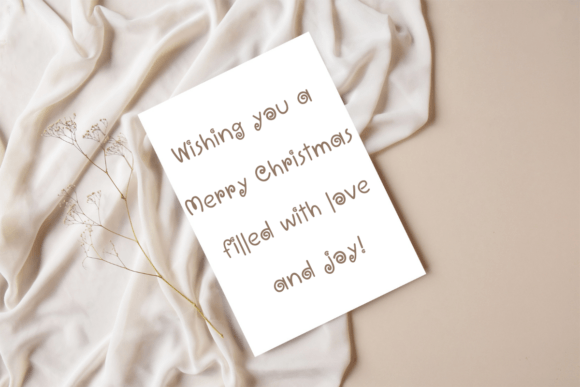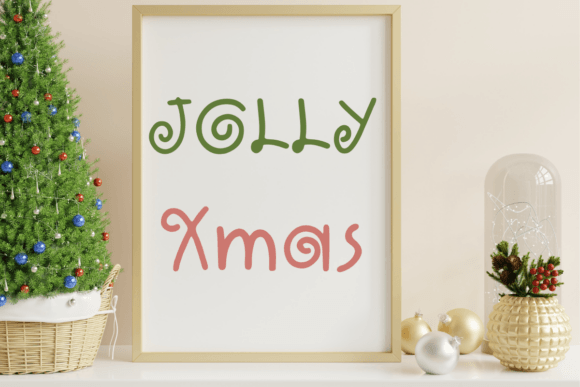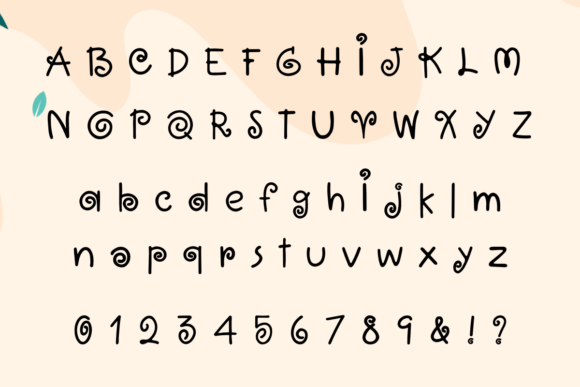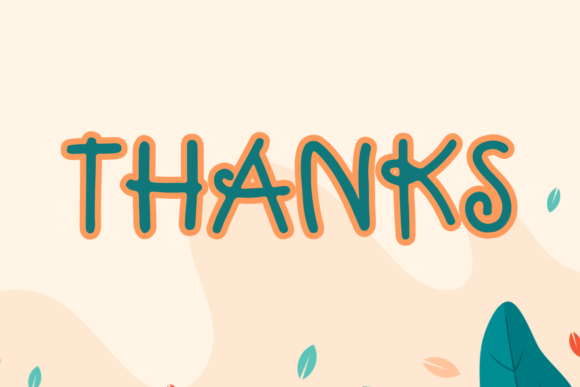
Introducing Curvy Font: Add a Playful Touch to Your Creative Projects
Are you looking for a font that can add a dash of personality to your creative projects? Look no further than Curvy Font! This fun and quirky font is designed to bring a playful touch to your designs, making it perfect for a wide range of applications. From invitations and greeting cards to posters, children’s books, and more, Curvy Font is the perfect choice for designers and crafters who want to add a unique style to their work.
The Characteristics of Curvy Font
So, what makes Curvy Font so special? For starters, its rounded shapes and whimsical curves give it a distinctive look that’s both fun and playful. The font’s unique design makes it perfect for adding a touch of personality to any project, whether you’re creating a logo, custom prints, or web designs. Additionally, Curvy Font is highly versatile, making it suitable for a wide range of applications, from crafting and DIY projects to branding and advertising.
Curvy Font is perfect for designers and crafters who want to add a playful touch to their creative projects. Here are just a few ideas for how you can use this fun and quirky font:
- Invitations and Greeting Cards: Add a personal touch to your invitations and greeting cards with Curvy Font. Its playful design makes it perfect for special occasions like birthdays, weddings, and holidays.
- Posters and Flyers: Create eye-catching posters and flyers with Curvy Font. Its bold and playful design makes it perfect for advertising events, promotions, and more.
- Children’s Books: Curvy Font is perfect for children’s books, adding a fun and playful touch to your storybook designs.
- Branding and Advertising: Use Curvy Font to create unique and memorable branding and advertising materials, such as logos, business cards, and brochures.
- Crafting and DIY Projects: Add a personal touch to your crafting and DIY projects with Curvy Font. Its playful design makes it perfect for creating custom signs, banners, and more.
Why Choose Curvy Font?
So, why should you choose Curvy Font for your creative projects? Here are just a few reasons:
- Unique Design: Curvy Font has a unique and playful design that will add a touch of personality to your projects.
- Highly Versatile: Curvy Font is highly versatile, making it suitable for a wide range of applications.
- Easy to Use: Curvy Font is easy to use and can be easily integrated into your design projects.
- Fun and Playful: Curvy Font is perfect for designers and crafters who want to add a fun and playful touch to their projects.
| Font Name | Curvy Font |
| Author | zikadoozz |
In conclusion, Curvy Font is a fun and quirky font that’s perfect for designers and crafters who want to add a playful touch to their creative projects. With its unique design, highly versatile nature, and ease of use, Curvy Font is the perfect choice for a wide range of applications. Whether you’re creating invitations, posters, children’s books, or more, Curvy Font is sure to add a delightful and energetic flair to your work. So why wait? Download Curvy Font today and let your creativity flow!